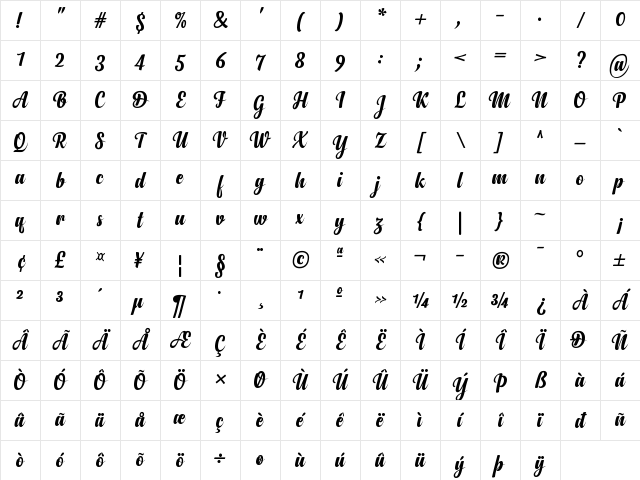
Anydore Regular Free Font
Anydore Regular
Foundry: 7NTypes
Designer: Situjuh Nazara
Design Context for Anydore
Anydore is a composed and adaptable typeface that performs quietly and consistently across a wide range of design contexts.